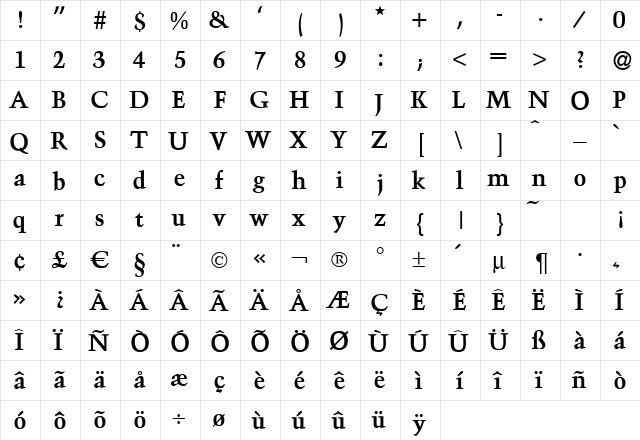
Troubadour Bold
Design Context for Troubadour Typeface
Troubadour takes a measured approach to typography — its balanced proportions and neutral character make it a reliable workhorse for both digital and print work. The heavy weight commands attention and anchors typographic hierarchies.